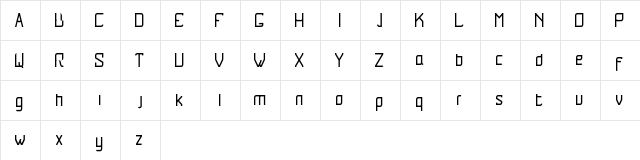
Lurix Regular
| Designer | Ahmed Crvst |
Design Context for Lurix Typeface
Lurix offers clean, dependable letterforms without strong stylistic allegiance, making it a practical choice for designers who need flexibility.